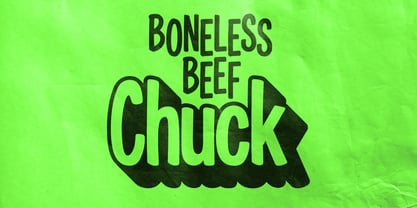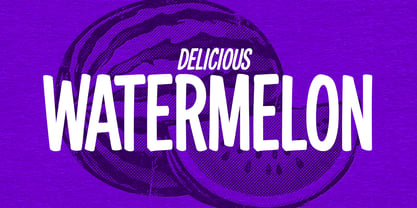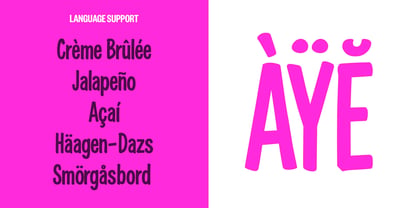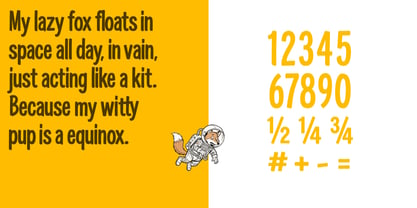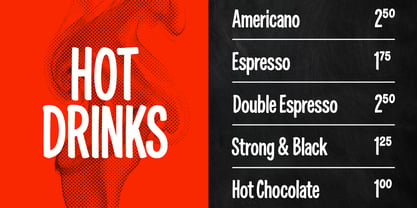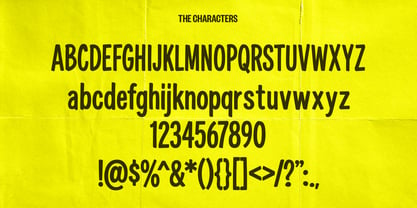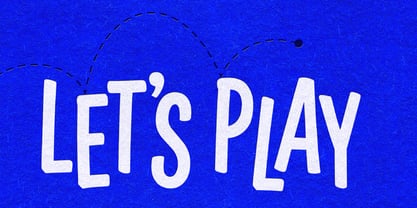
Hey Chuck
by Matthew Carl
The Hey Chuck Font Family was designed by Matthew Carl and published by Matthew Carl. Hey Chuck contains 2 styles and family package options. More about this family
Chuck is a condensed display face with tall, slightly wonky letterforms that look like they were painted on a sign by someone who knew what they were doing but didn't overthink it. The verticals have just enough irregularity to feel human without looking sloppy.
It works for menu boards, packaging, event posters, or any project where pristine geometry would be the wrong move. Chuck performs best at larger sizes where that hand-drawn character can breathe—think headlines, not body copy.
The font includes 356 glyphs with extended Latin support, so it handles multilingual work. It's got ligatures to prevent awkward letter collisions, small caps for hierarchy, and proper fractions for pricing. All the OpenType features are tucked in there, ready when you need them.
Built for projects that benefit from looking like actual humans made them.